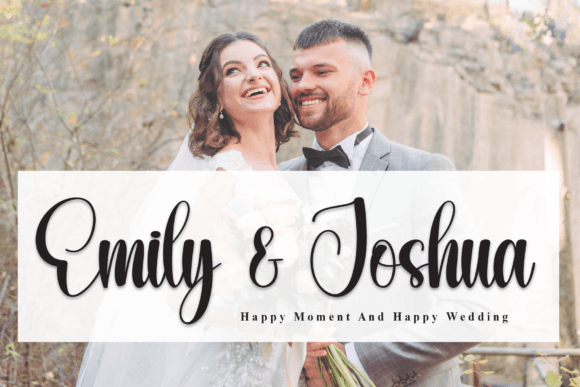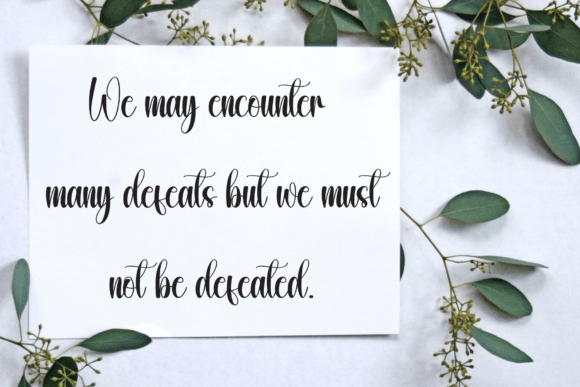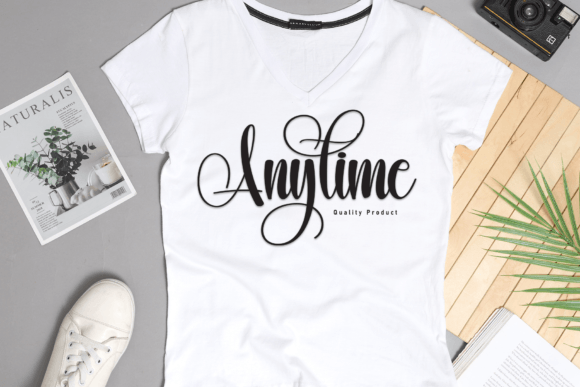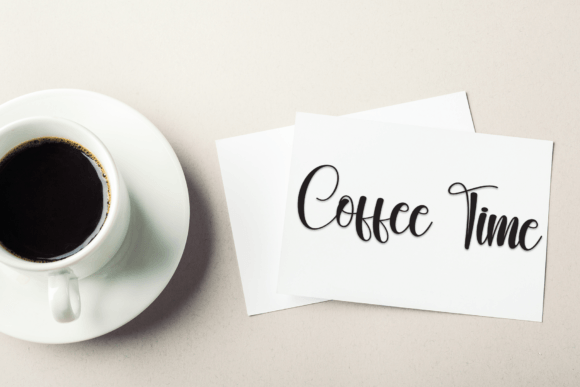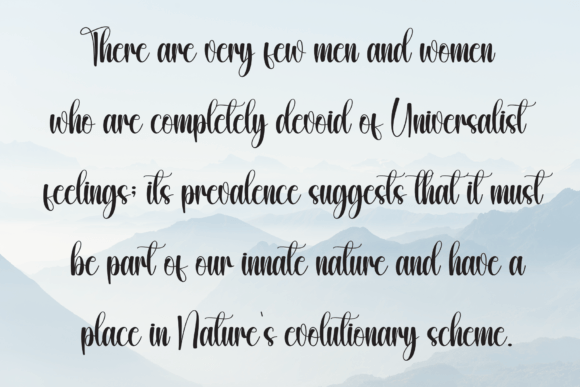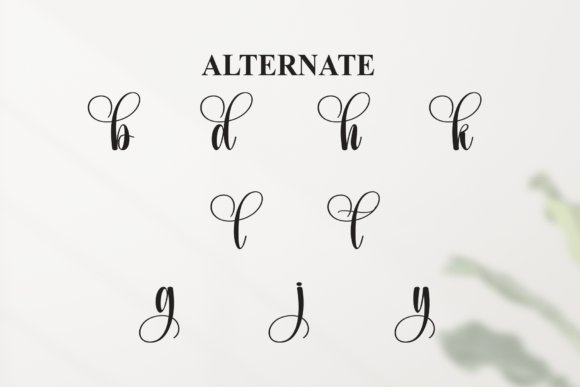
Discover the Charm of Angela Font: A Sweet and Friendly Handwritten Delight
Are you a designer or crafter looking for a font that can add a touch of warmth and personality to your projects? Look no further than Angela Font, a sweet and friendly handwritten font that’s perfect for a wide range of designs. With its natural and unique style, Angela Font is incredibly versatile and can be used in various creative endeavors, from digital projects to print materials.
The Unique Characteristics of Angela Font
Angela Font boasts a distinct, handcrafted feel that sets it apart from more traditional fonts. Its natural, flowing lines and subtle imperfections give it a charming, organic look that’s sure to capture the hearts of designers and crafters alike. Whether you’re working on a logo, a poster, a website, or a craft project, Angela Font’s unique style is sure to add a touch of personality and whimsy.
The Benefits of Using Angela Font
So, what makes Angela Font so special? Here are just a few benefits of using this delightful handwritten font:
- Versatility: Angela Font is incredibly versatile and can be used in a wide range of designs, from formal to informal, and from digital to print.
- Emotional Connection: The font’s natural, handwritten style creates an instant emotional connection with the reader, making it perfect for designs that require a personal touch.
- Unique Style: Angela Font’s distinct style sets it apart from more traditional fonts, ensuring that your designs will stand out from the crowd.
- Ease of Use: The font is easy to read and works well in various sizes, making it perfect for body text, headings, and titles.
Ideas for Using Angela Font
Angela Font is incredibly versatile, and its uses are only limited by your imagination. Here are a few ideas to get you started:
- Branding and Logo Design: Use Angela Font to create a unique and memorable logo that reflects your brand’s personality.
- Digital Projects: Add a touch of warmth and personality to your website, social media graphics, or email newsletters with Angela Font.
- Print Materials: Use Angela Font in your print materials, such as brochures, flyers, posters, or business cards, to create a lasting impression.
- Crafting and DIY Projects: Add a personal touch to your crafting and DIY projects, such as handmade cards, invitations, or scrapbooking pages.
Tips for Pairing Angela Font with Other Fonts
Angela Font can be paired with a variety of fonts to create stunning contrast and visual interest. Here are a few tips for pairing Angela Font with other fonts:
- Pair with a Serif Font: Pair Angela Font with a serif font, such as Times New Roman or Georgia, to create a classic and elegant look.
- Pair with a Sans-Serif Font: Pair Angela Font with a sans-serif font, such as Arial or Helvetica, to create a modern and clean look.
- Experiment with Script Fonts: Pair Angela Font with a script font, such as Pacifico or Great Vibes, to create a beautiful and elegant look.
Angela Font is a sweet and friendly handwritten font that’s perfect for designers and crafters looking to add a touch of warmth and personality to their projects. With its natural and unique style, Angela Font is incredibly versatile and can be used in various creative endeavors. Whether you’re working on a logo, a poster, a website, or a craft project, Angela Font is sure to bring a smile to your face and a touch of magic to your designs.